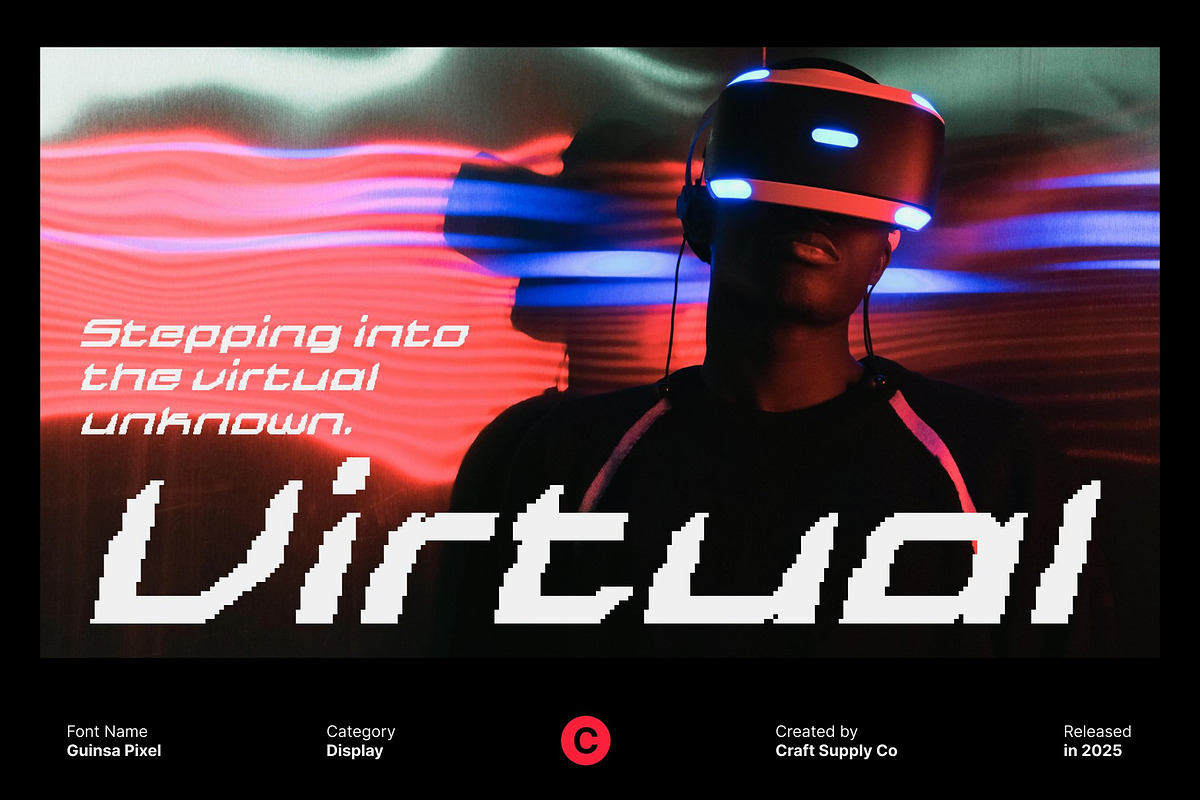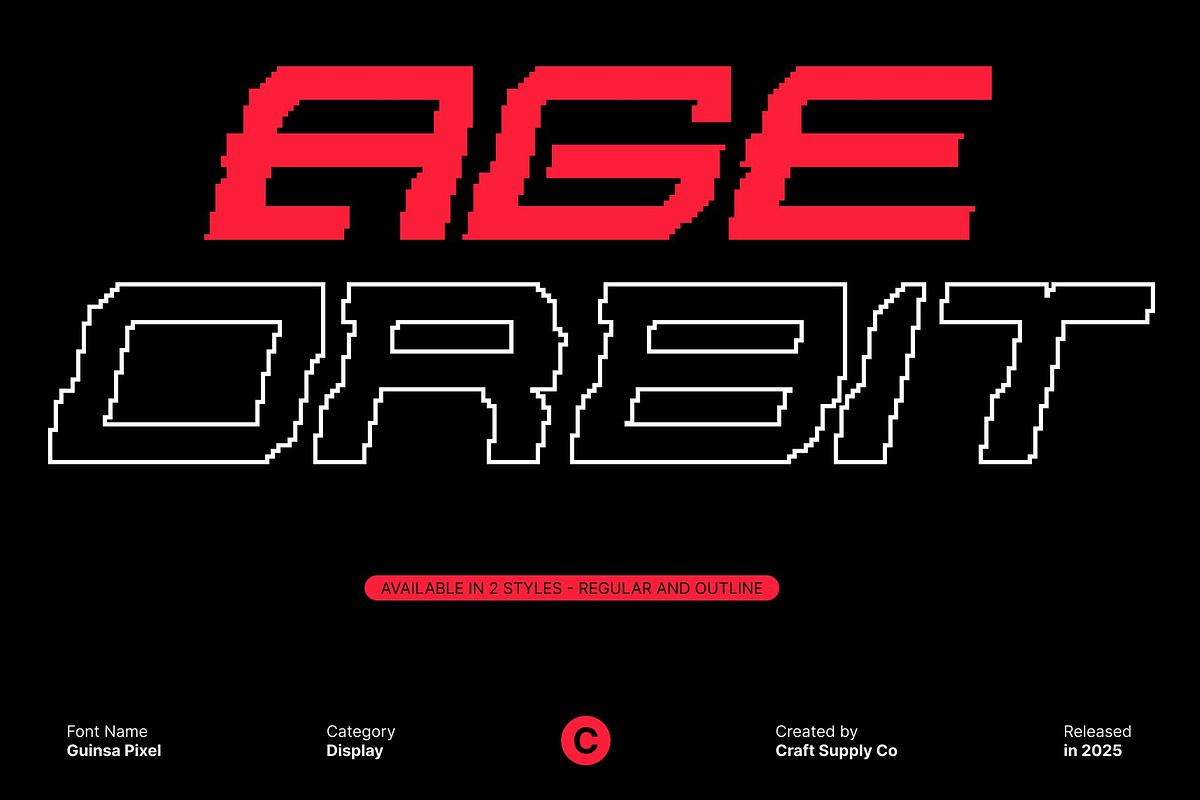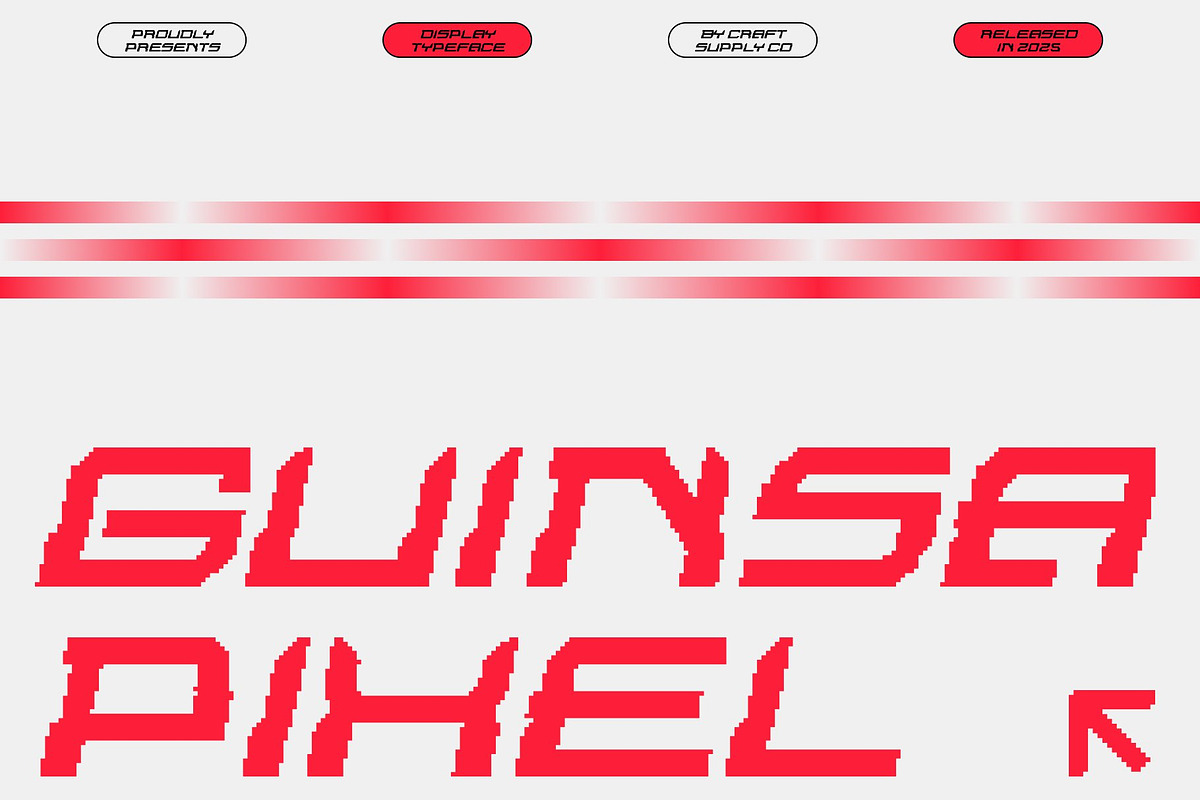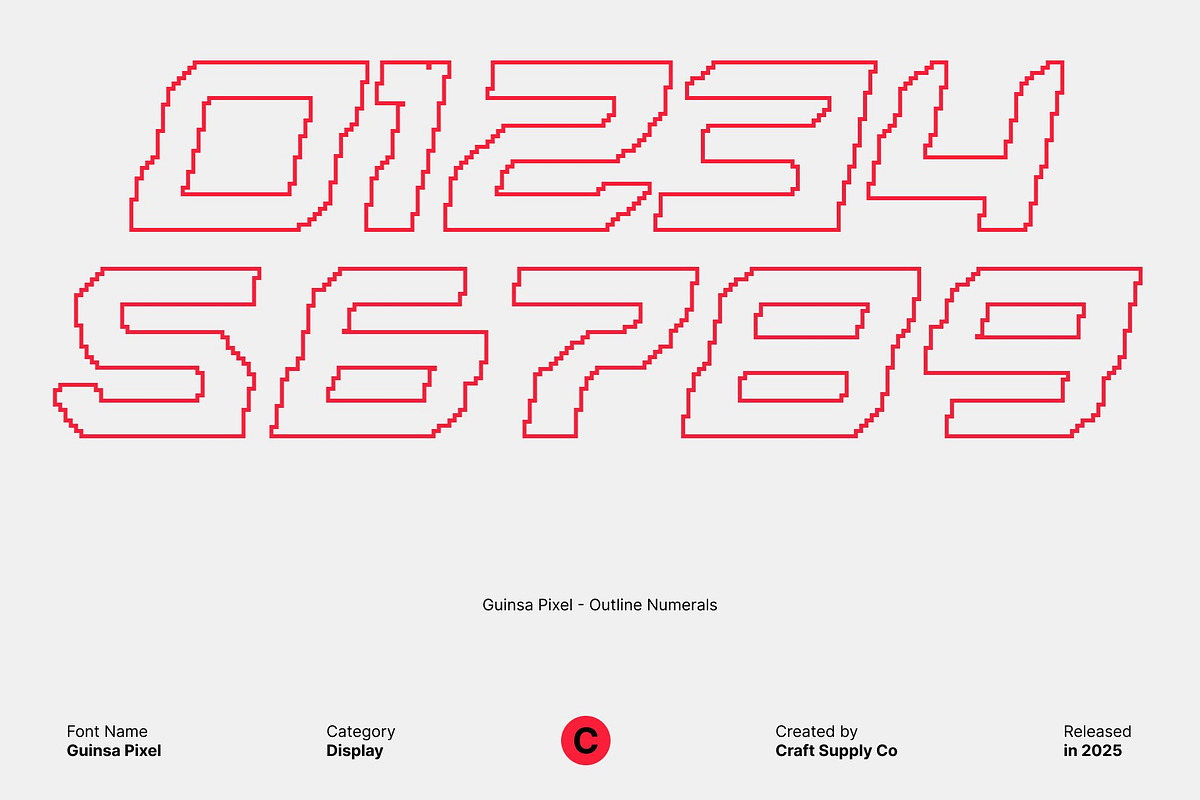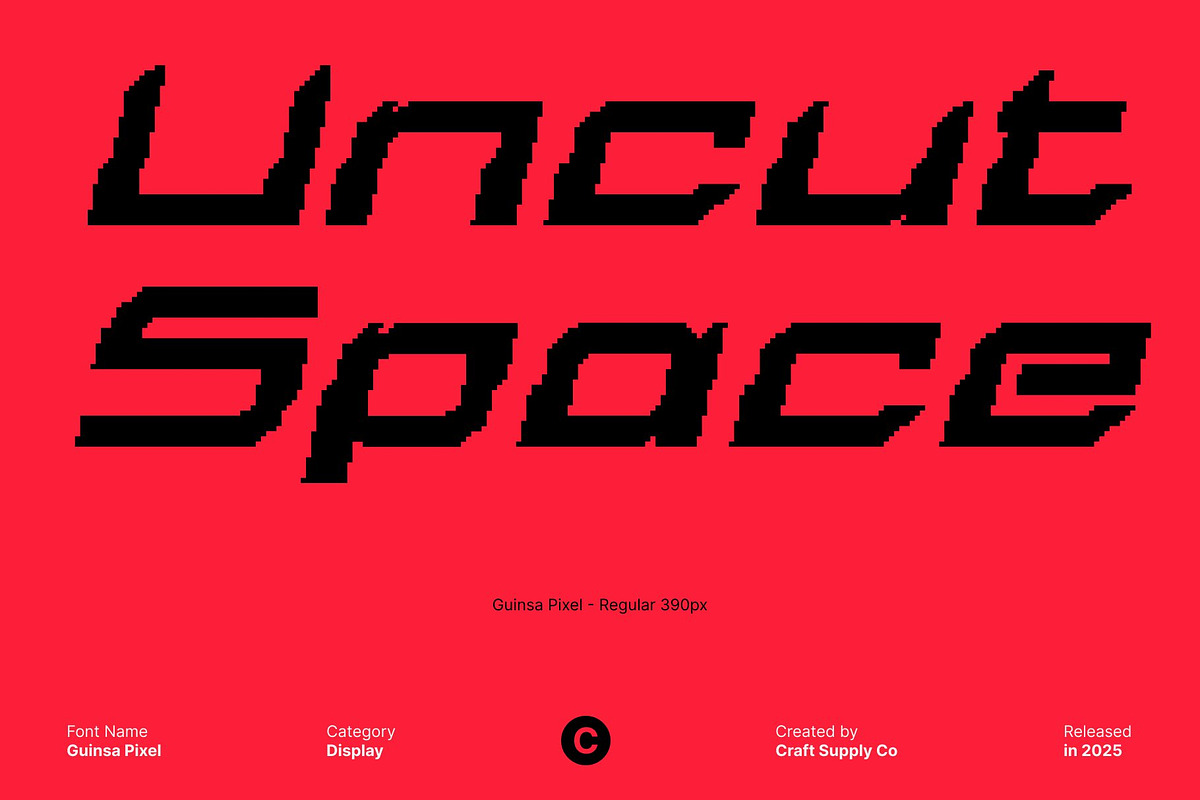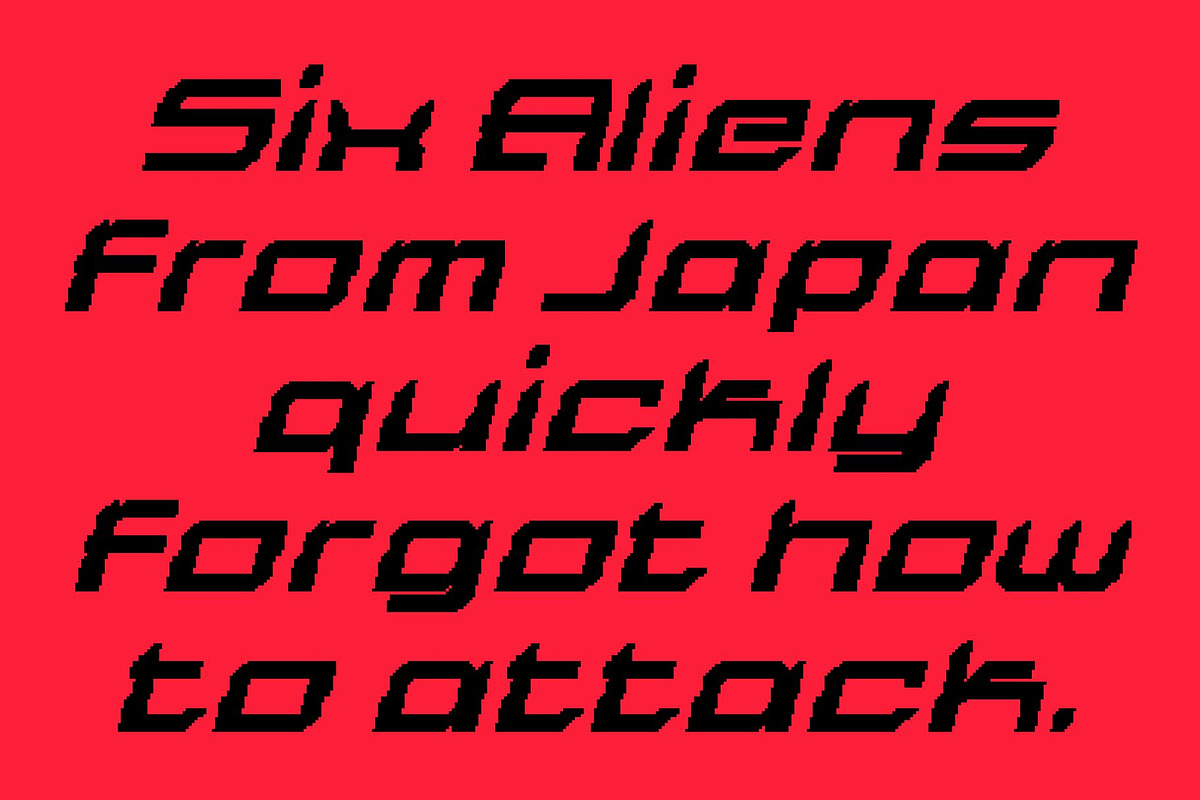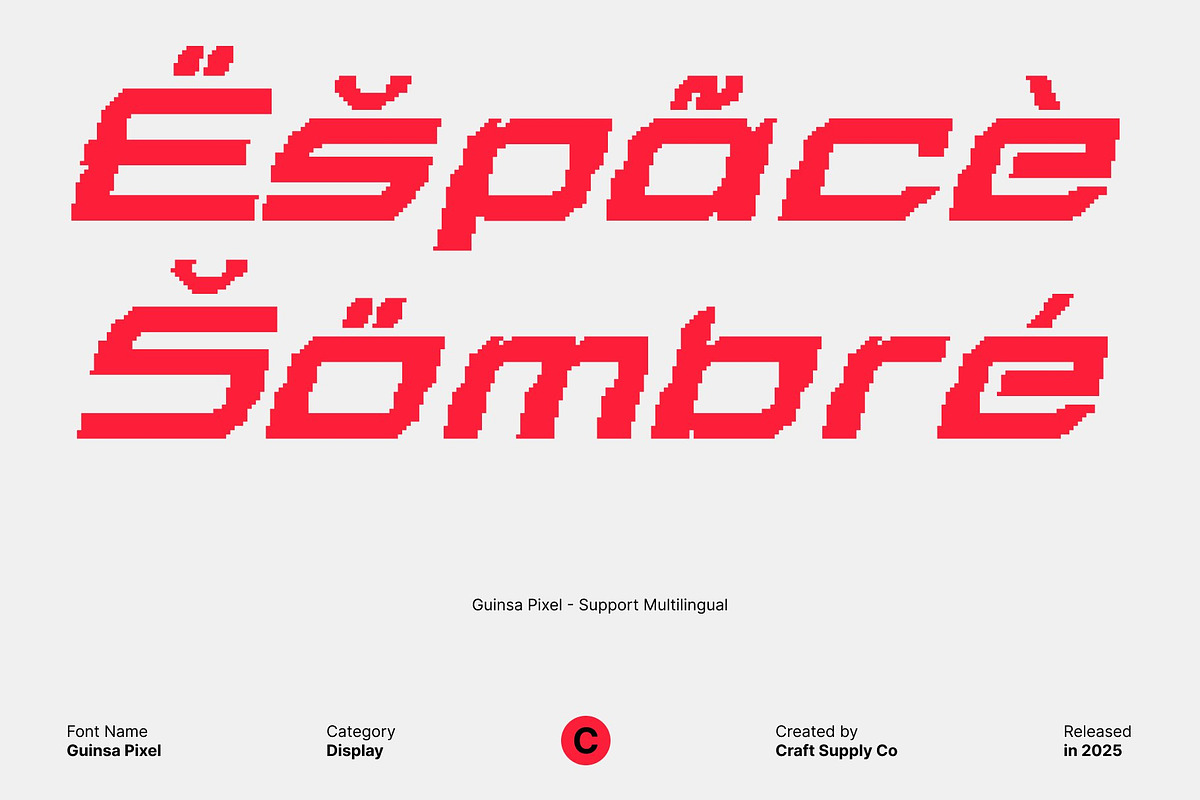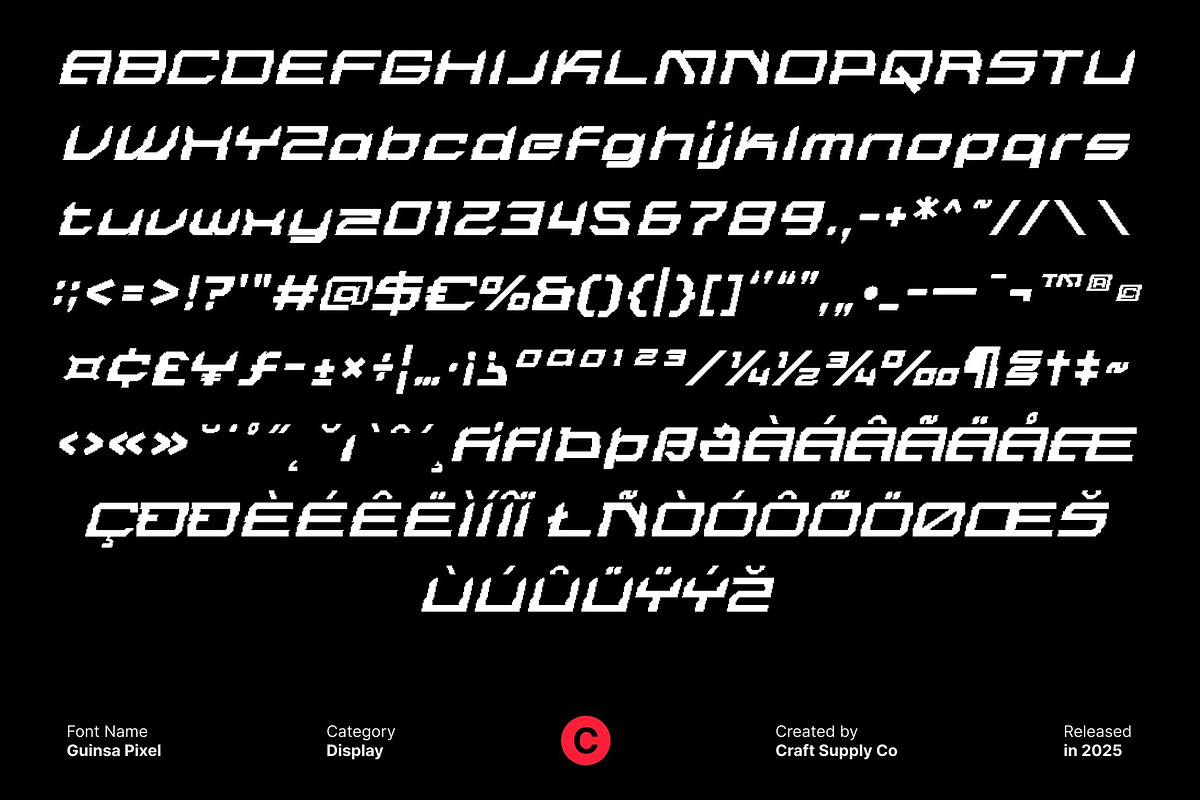
Guinsa Pixel
Guinsa Pixel – Techno Display with Bold Pixel Power
Bold Shapes with Energetic Modern Presence Bold and striking, this techno-inspired display font radiates strong modern energy through its sharp forms and futuristic structure. Its powerful, streamlined shapes create an innovative and dynamic visual impact, making it perfect for designs that want to stand loud, confident, and forward-thinking.
Pixel Influence Inspired by Classic Digital Graphics Infused with pixel-style detailing, the font echoes the look of old computer screens, retro arcade visuals, and early game graphics. This pixel texture adds an exciting layer of nostalgia, blending futuristic energy with the timeless charm of early digital technology resulting in a uniquely bold typographic identity.
Perfect for Futuristic Themes, Tech Sites, and Creative Branding Whether used for futuristic design concepts, techno-themed websites, unique logos, posters, infographics, or branding, this font delivers immediate visual impact. Its techno foundation ensures modern clarity, while its pixel influence brings character and classic digital authenticity.
Modern, Digital, and Visually Powerful By merging techno-inspired minimalism with retro pixel aesthetics, this font creates a memorable and digitally expressive style. It’s the ideal choice for designers aiming to highlight innovation, energy, and the classic spirit of early technology in a bold, modern way.